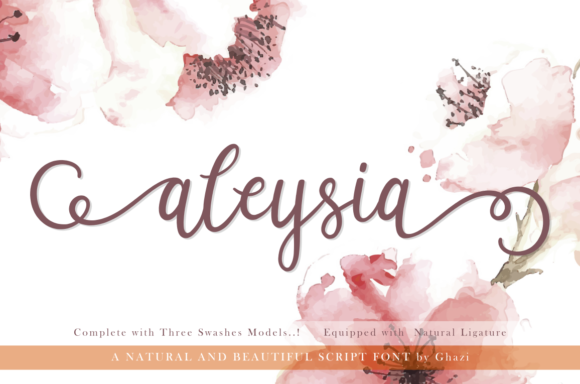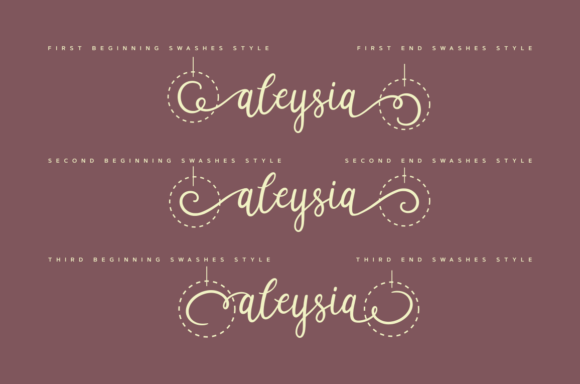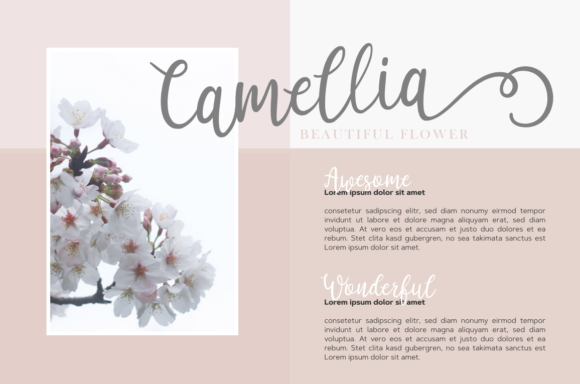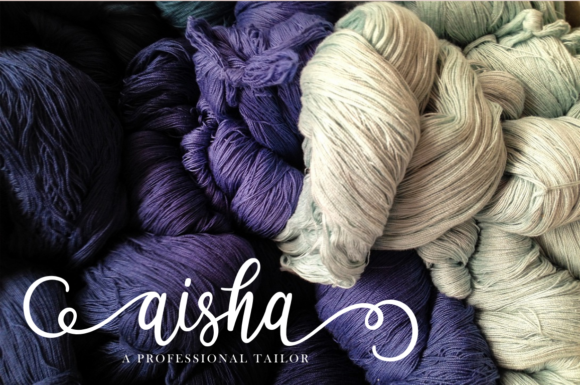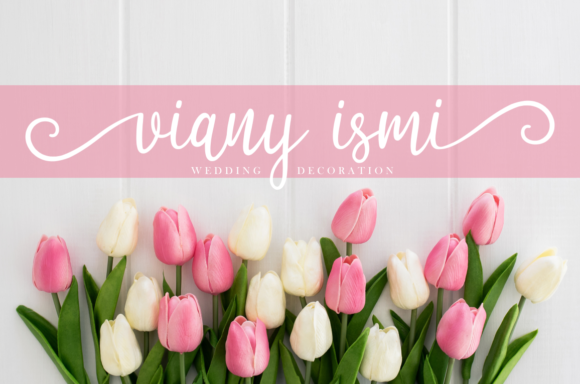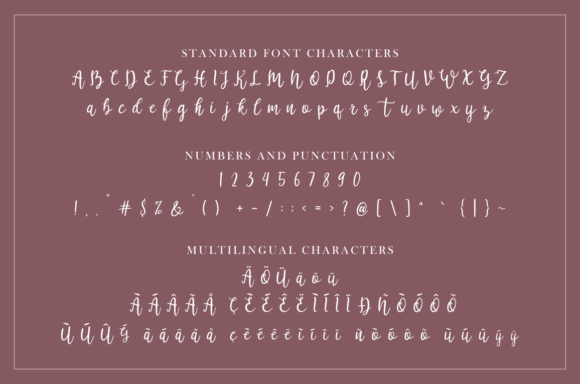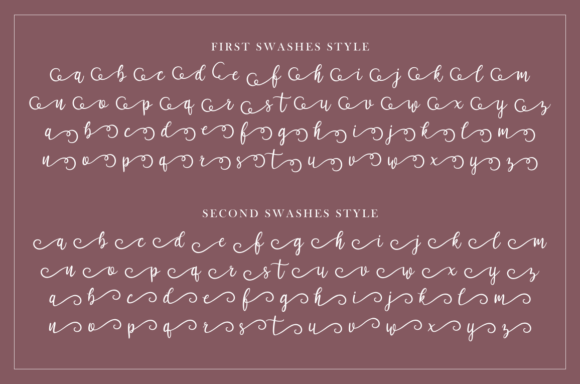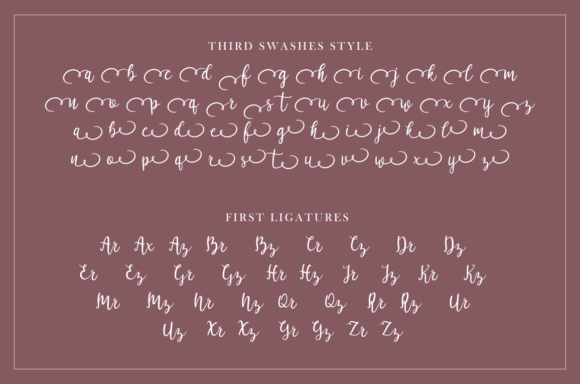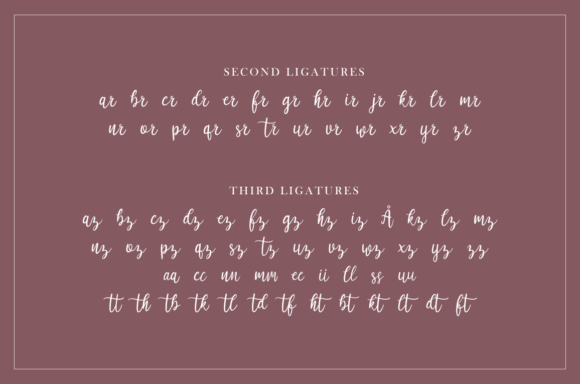
Aleysia Font
About Aleysia Font
The Aleysia is a lovely signature script. It has a natural writing style and will add a classy touch to your designs.
It works great for a large range of designs that need a smooth and personal touch.
It’s perfect for branding, photography, invitations, quotes, watermarks, advertisements, product designs, labels, and much more!